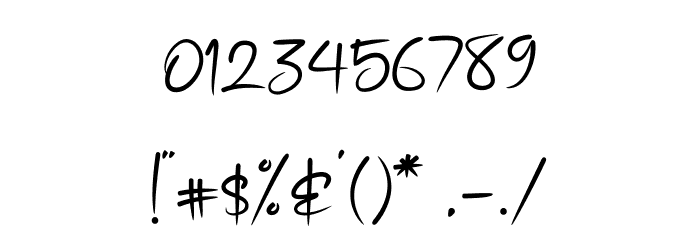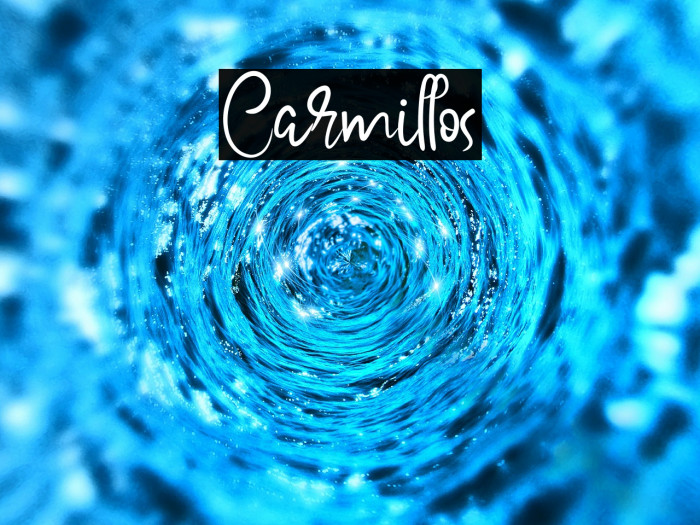
Carmillos Font
This font features a playful and elegant script style with a handwritten appearance. The uppercase letters are characterized by their flowing, cursive forms, while the lowercase letters maintain a consistent, smooth stroke. The numerals are clear and legible, complementing the overall aesthetic. Special characters are designed with the same fluidity, enhancing the font's cohesive look. The strokes vary in thickness, providing a dynamic and lively feel. This font is ideal for projects that require a personal touch, such as invitations, greeting cards, or branding materials.
A playful and elegant handwritten script font with dynamic strokes.
- Font: Carmillos
- Proposed Projects: Ideal for invitations, greeting cards, branding, and personal projects.
- Category: Script
- Use Case: Logos, Headlines, Invitations